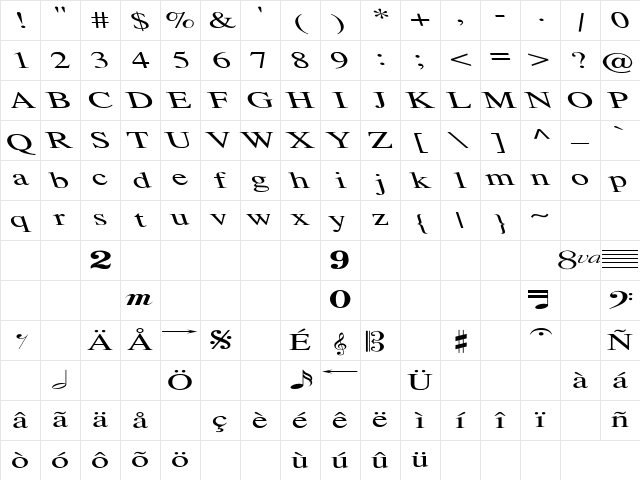
Complete Tempo Font Ex Left Regular glyph index. Displaying only characters natively supported by Tempo Font Ex Left Regular font.
Tempo Font Ex Left is a composed and adaptable typeface that performs quietly and consistently across a wide range of design contexts.